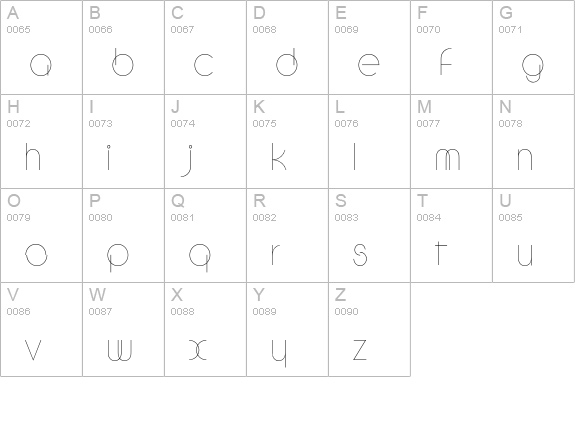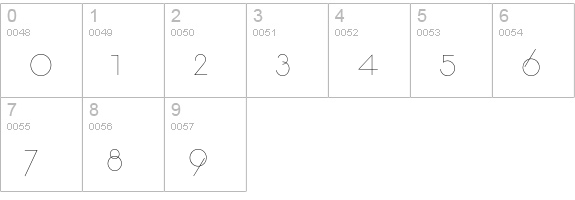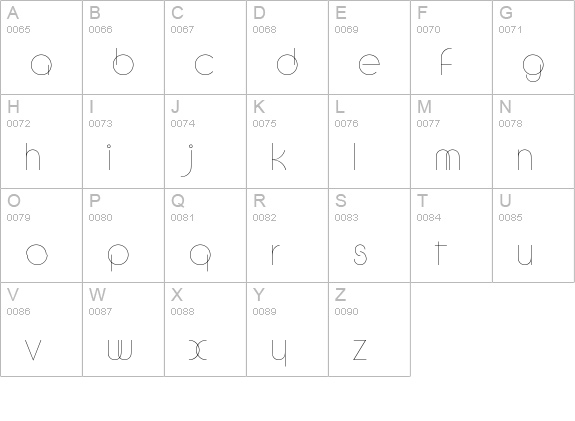
CirkulusEF Font Details
CirkulusEF is a modern and stylish font that exudes elegance and sophistication. Its unique circular design gives it a contemporary and sleek look that is perfect for a wide range of design projects. The rounded edges of the letters create a soft and welcoming feel, making this font versatile for both formal and casual designs. What sets CirkulusEF apart is not only its aesthetic appeal but also the fact that it is available for free. Yes, you read that right - this premium font can be downloaded at no cost from FontsMarket.com. Whether you are working on branding materials, invitations, posters, or any other creative project, CirkulusEF is sure to elevate your design with its clean lines and striking visual impact. Don't miss out on the opportunity to add CirkulusEF to your font collection today. Download it for free and let your creativity soar with this exceptional typeface.